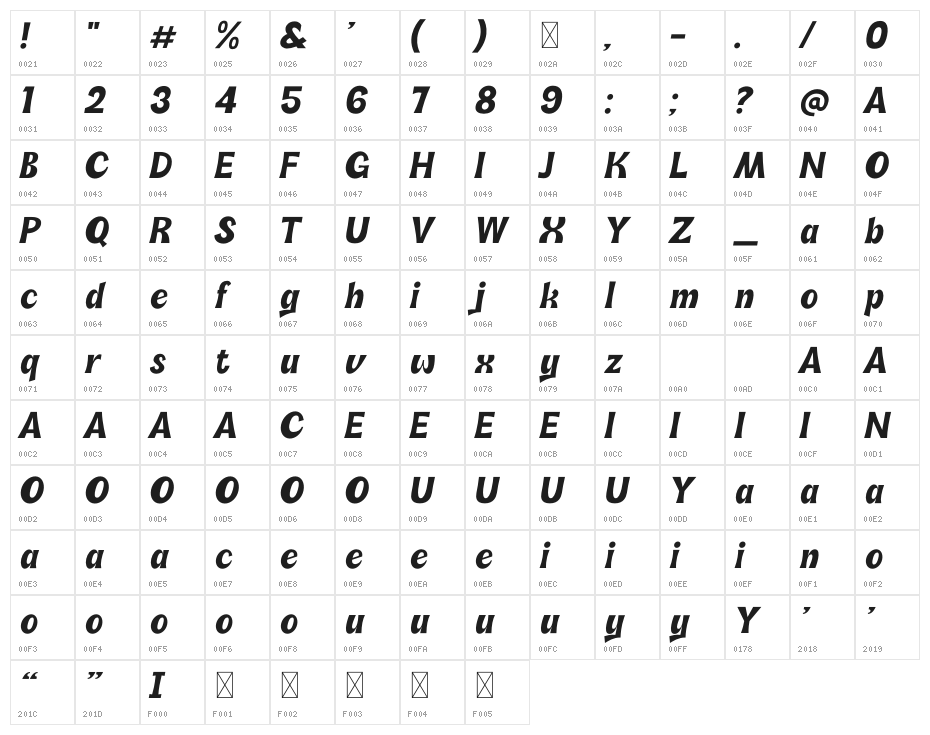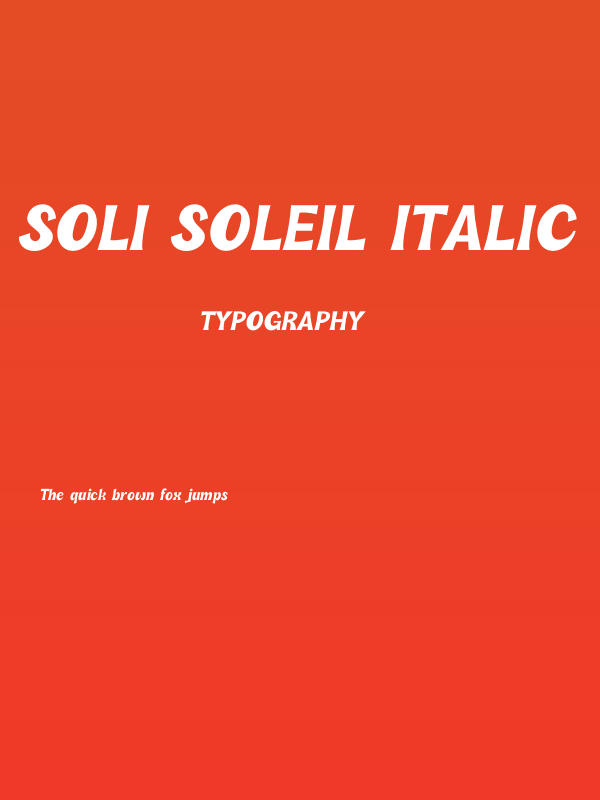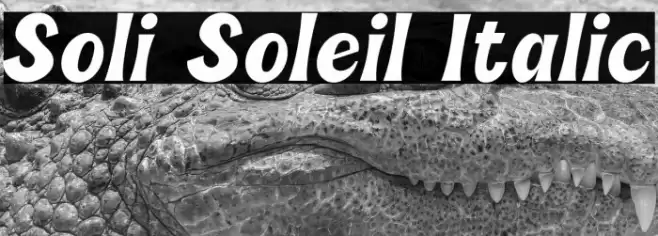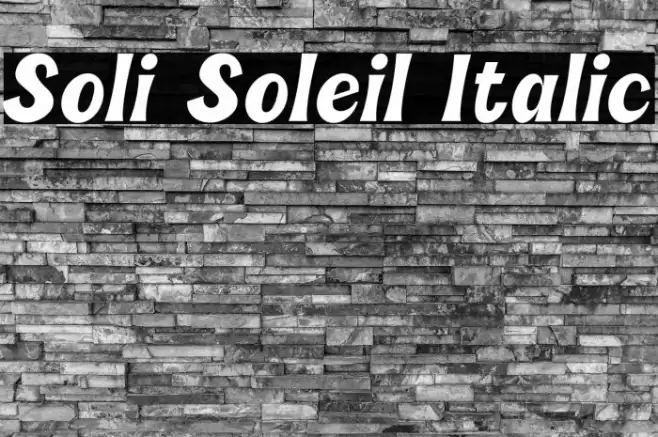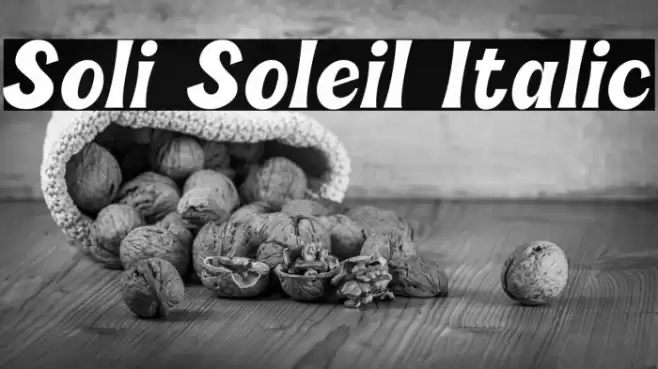
Soli Soleil Italic Font
Soli Soleil Italic Description
This font exhibits a dynamic and energetic style with a pronounced italic slant, giving it a sense of motion and fluidity. The characters are bold and robust, with a strong presence that commands attention. The strokes are consistent in thickness, providing a uniform appearance across all characters. The uppercase letters are tall and imposing, while the lowercase letters maintain a balanced and harmonious flow. The numerals are clear and legible, matching the overall boldness of the alphabet. Special characters are distinct and well-defined, ensuring clarity in various contexts.
| Proposed Projects | Ideal for branding, advertising, and editorial design where a bold statement is needed. |